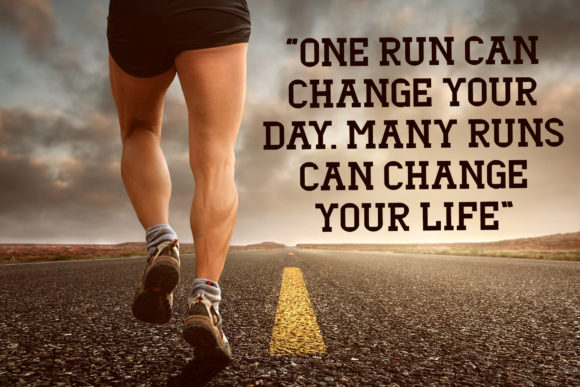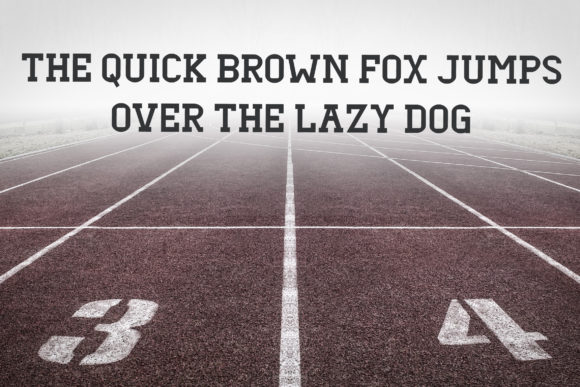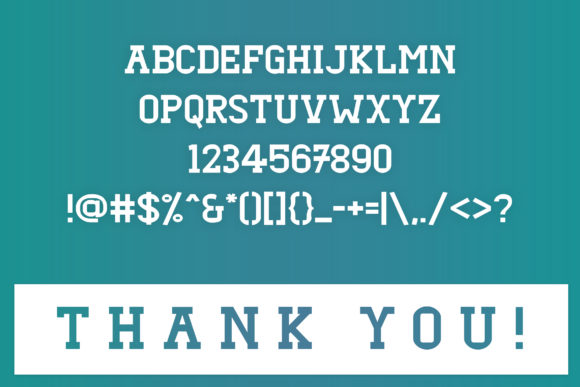
Introducing Dezire Font: The Ultimate All-Caps Slab Serif for Stunning Designs
In the world of typography, fonts play a crucial role in making or breaking a design. A well-chosen font can elevate your brand’s visual identity, convey the right message, and leave a lasting impression on your audience. If you’re a designer, craftsperson, or simply someone who appreciates great typography, you’re in for a treat. Say hello to Dezire Font, an all-caps slab serif font that’s about to revolutionize your design game!
What is Dezire Font?
Dezire is a stylish and versatile all-caps slab serif font that’s perfect for a wide range of design applications. Its sturdy, confident appearance makes it an excellent choice for fashion designs, brand titles, sports-related designs, and so much more. Whether you’re creating a bold logo, a striking headline, or a captivating advertisement, Dezire Font is sure to make a statement.
Key Features of Dezire Font
- All-Caps Design: Dezire Font is an all-caps font, which means it’s designed to make a bold impact. Its uppercase letters are perfect for creating eye-catching titles, headings, and captions.
- Slab Serif Style: Dezire features a slab serif design, characterized by its thick, block-like serifs. This style gives the font a sturdy, dependable feel that’s perfect for creating a strong visual identity.
- High Versatility: Dezire Font is incredibly versatile and can be used for a wide range of design applications, from fashion and sports to branding and advertising.
- Easily Readable: Despite its bold design, Dezire Font is surprisingly easy to read, making it perfect for use in body text, headings, and titles.
Perfect Use Cases for Dezire Font
Dezire Font is an incredibly versatile font that can be used in a variety of design contexts. Here are some perfect use cases for this amazing font:
- Fashion Designs: Dezire Font is perfect for fashion brands that want to make a bold statement. Use it for logo designs, clothing labels, and marketing materials to create a stylish and sophisticated look.
- Sports-Related Designs: Dezire’s sturdy, athletic design makes it an excellent choice for sports-related designs, such as team logos, jerseys, and promotional materials.
- Brand Titles: Dezire Font is ideal for creating bold, eye-catching brand titles that demand attention. Use it to create a strong visual identity for your brand and make a lasting impression on your audience.
- Advertising and Marketing: Dezire Font is perfect for creating attention-grabbing advertisements, flyers, and brochures that need to stand out from the crowd.
Why Choose Dezire Font?
With so many fonts available, why choose Dezire Font? Here are just a few reasons why Dezire stands out from the crowd:
- Unique Design: Dezire Font boasts a unique, stylish design that’s sure to turn heads. Its slab serif style and all-caps design make it a standout in any design context.
- Highly Versatile: Dezire Font is incredibly versatile and can be used in a wide range of design applications, making it a great addition to any designer’s font library.
- Easily Customizable: Dezire Font is easy to customize, allowing you to tailor it to your specific design needs.
In conclusion, Dezire Font is an exceptional all-caps slab serif font that’s perfect for designers, craftspersons, and anyone looking to elevate their design game. Its unique design, high versatility, and ease of use make it an excellent addition to any font library. Whether you’re creating fashion designs, sports-related designs, brand titles, or advertisements, Dezire Font is sure to make a lasting impression. So why wait? Get Dezire Font today and start creating stunning designs that demand attention!